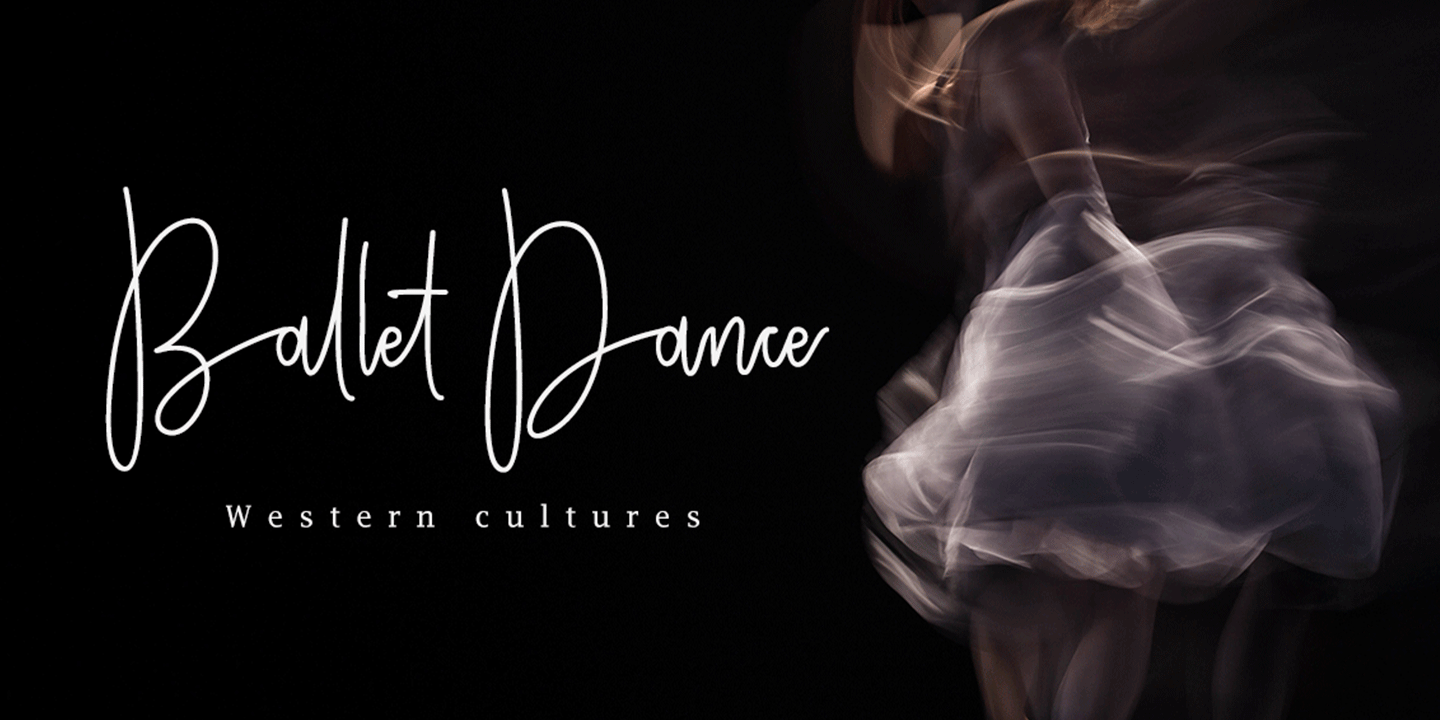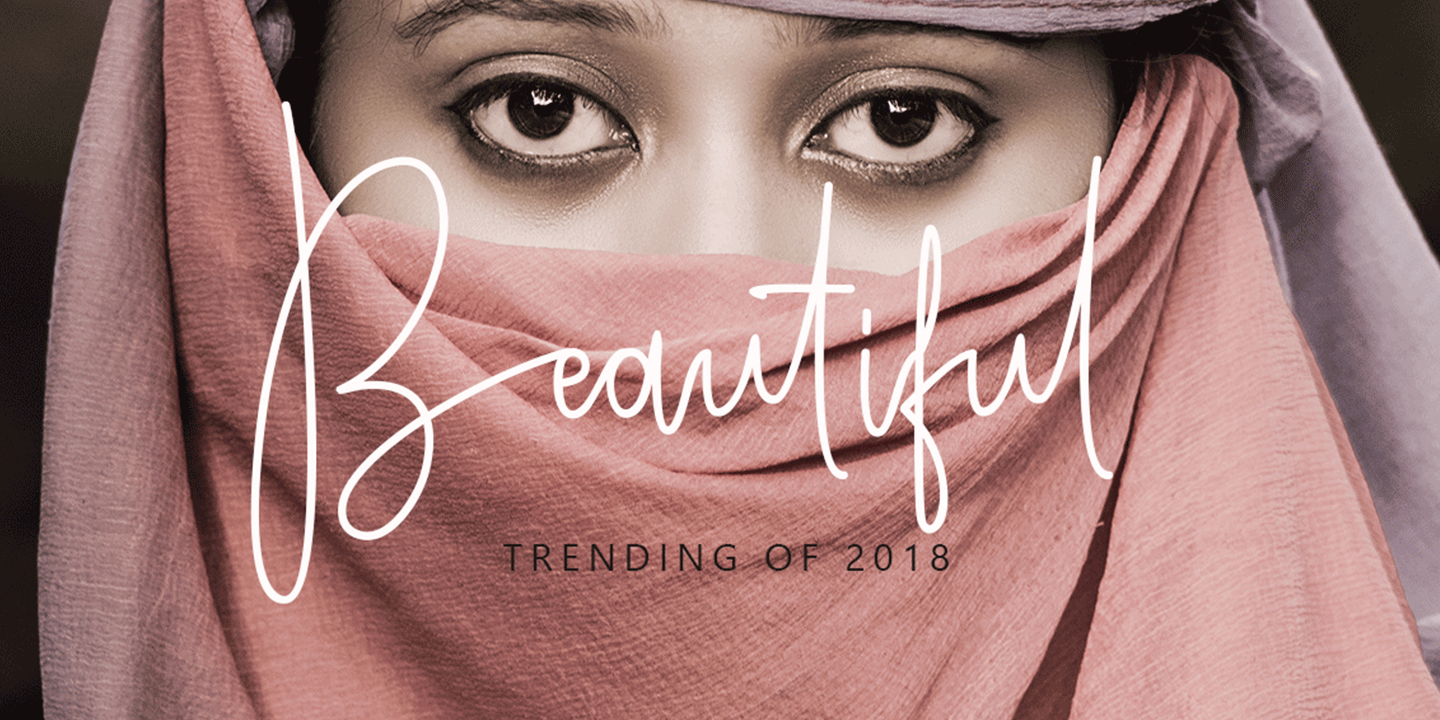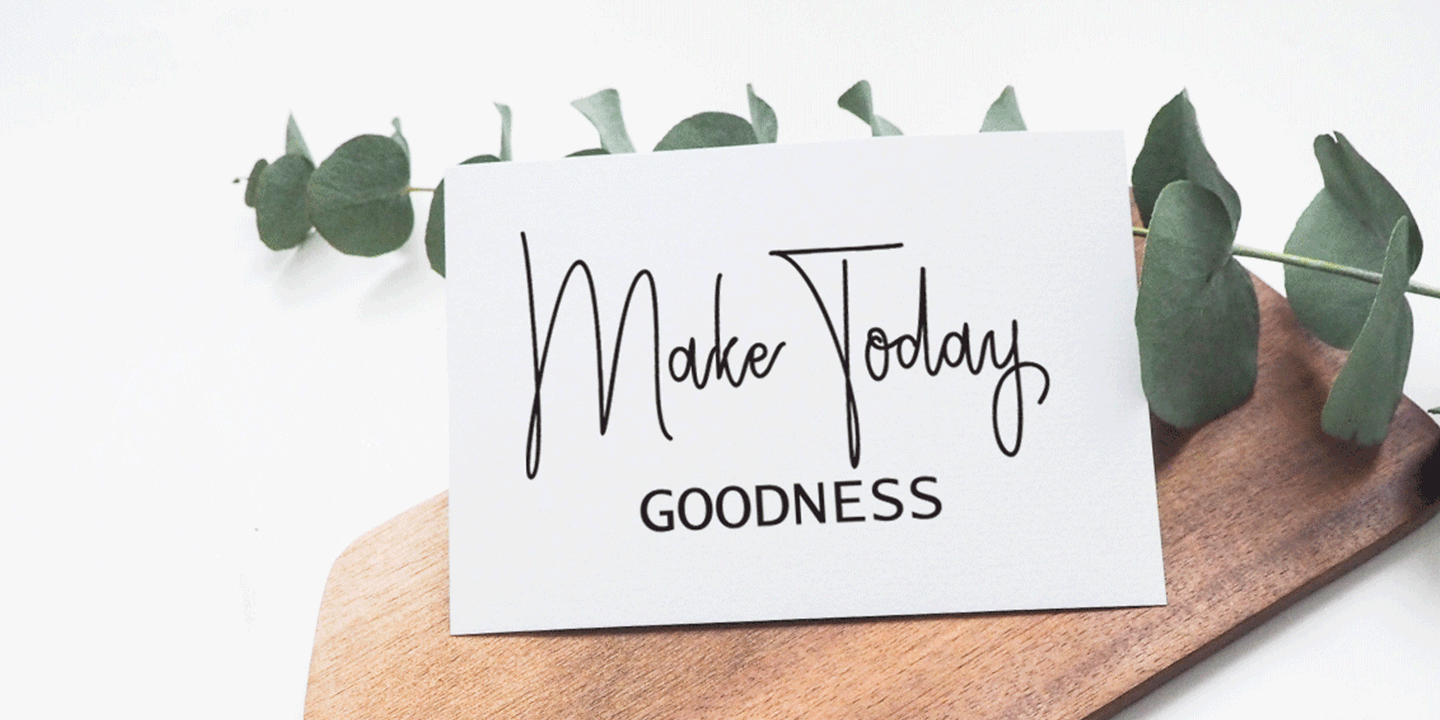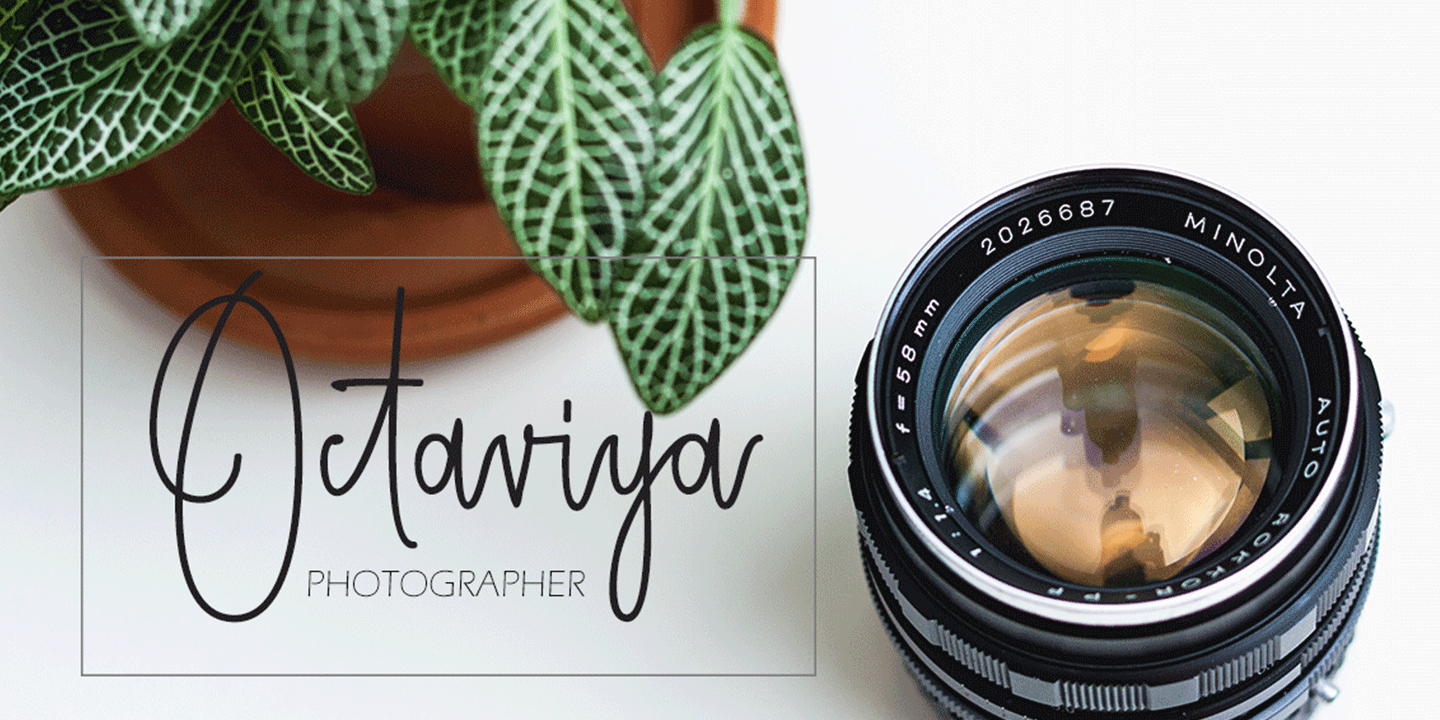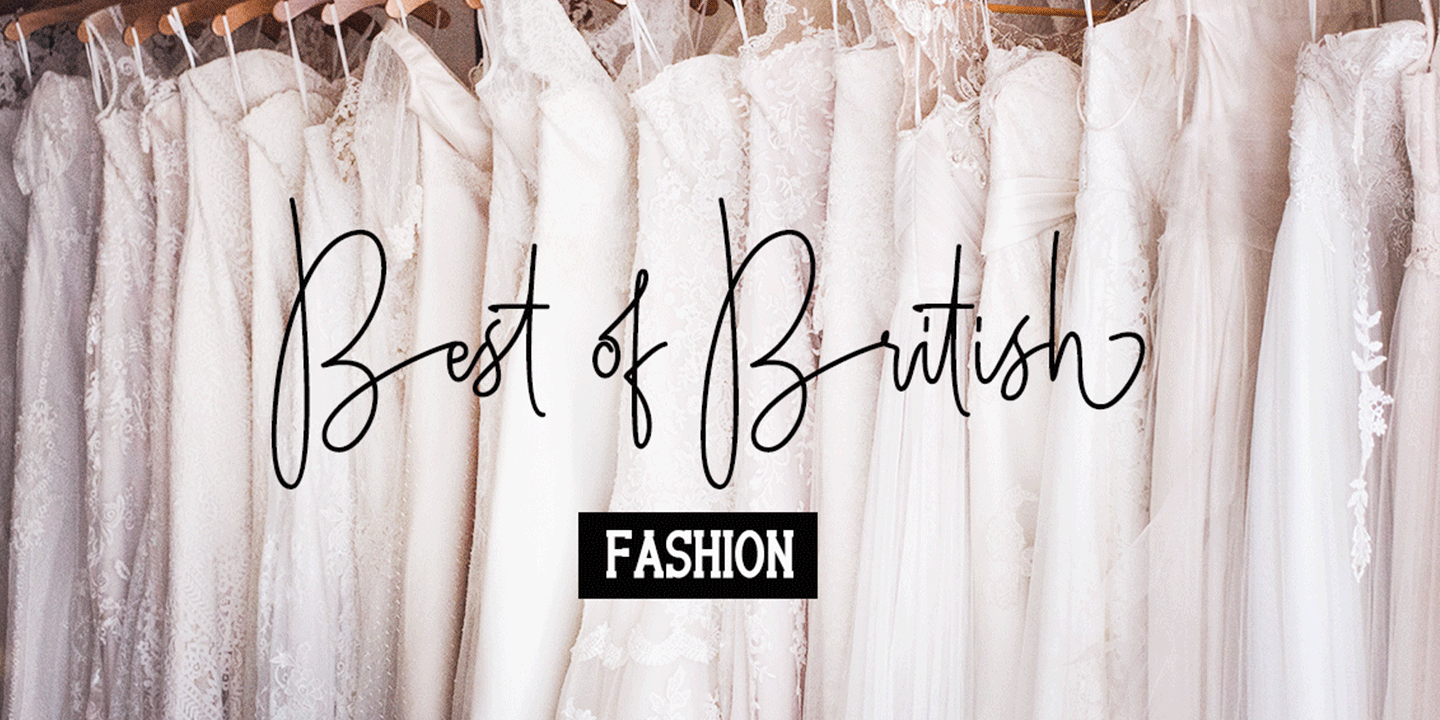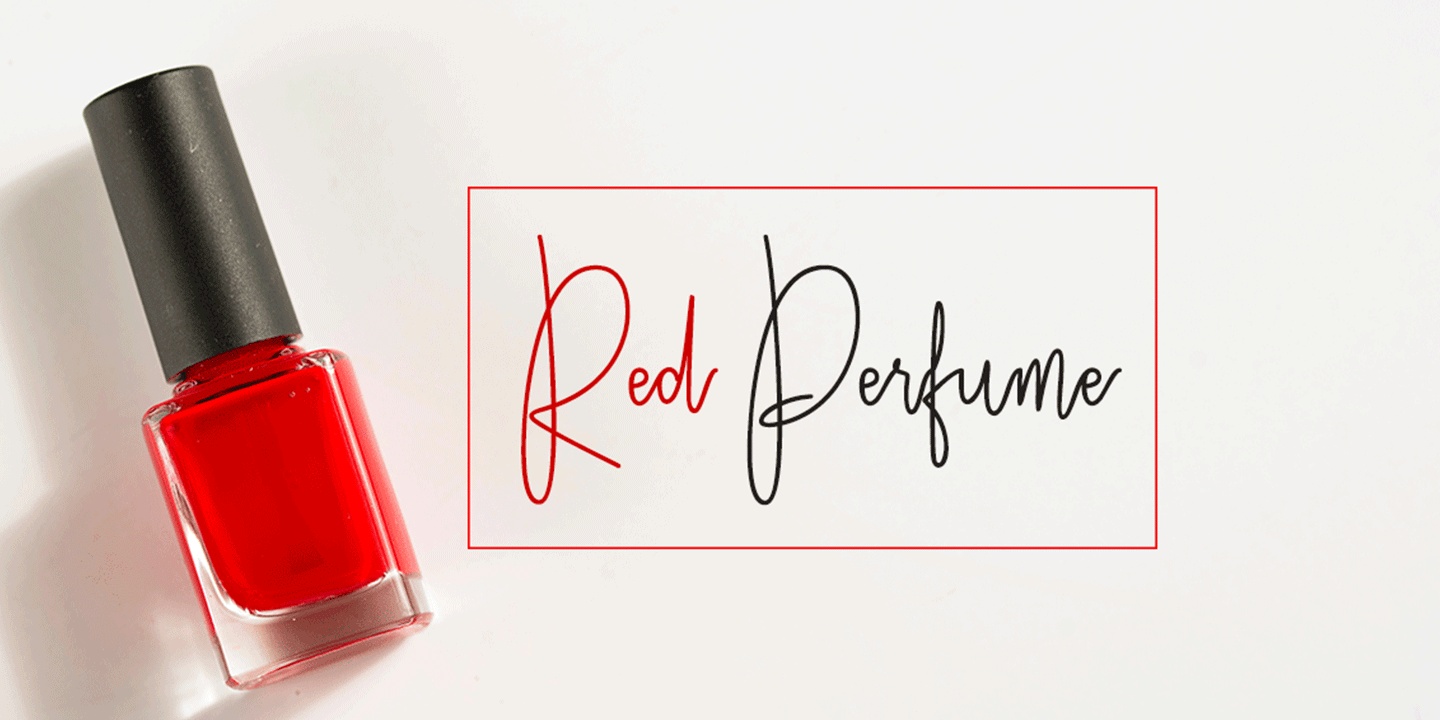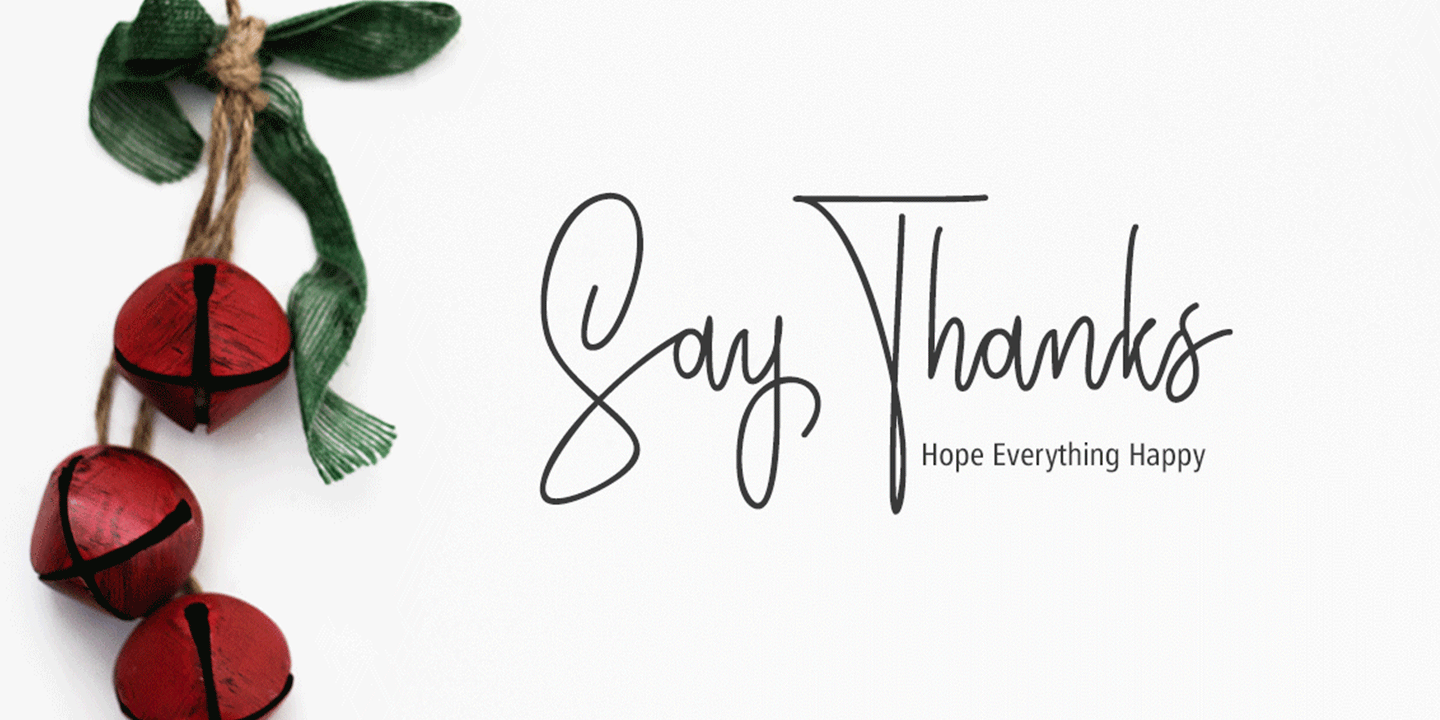
Hunting Object
Hunting Object a work that is purely handwritten, has its own characteristics with the style of monoline. this is perfect for invitations, signatures, blogs, social media, business cards, product brands.
Hunting Object has Stylistic standard, Stylistic Alternate, Stylistic Sets and ligatures. and includes uppercase and lowercase letters, numbers and punctuation marks.